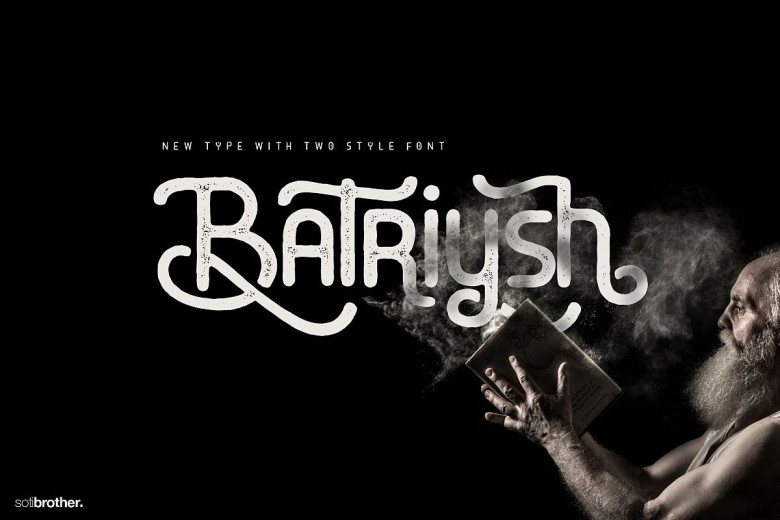
Batriysh Typeface
Introduce you perfect font-pair to give you many typographic variations for your project. Batriysh is a bold script trash typeface created by Sotibrother,This unique typeface hat will be perfect for any design project such as logos & branding, invitation, stationery, wedding designs, social media posts, advertisements, product packaging, product designs, label, photography, watermark, special events or anything that need that authentic handwriting taste.